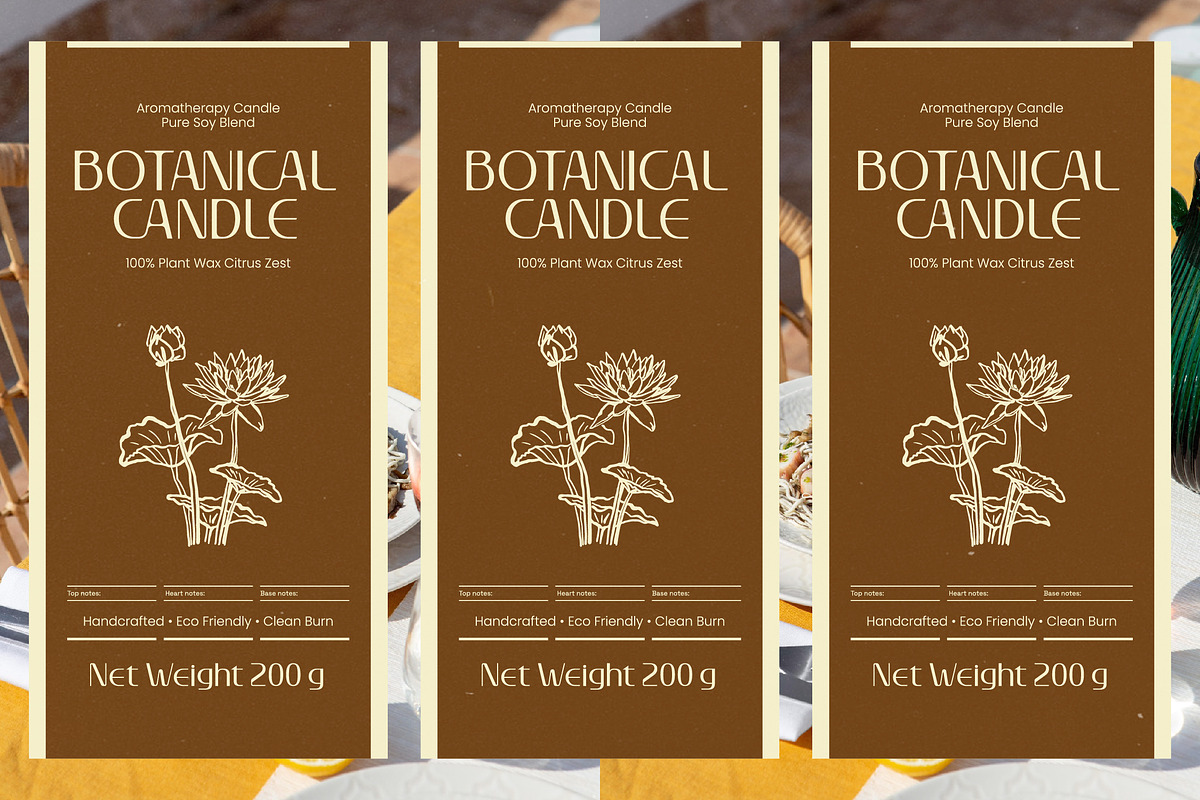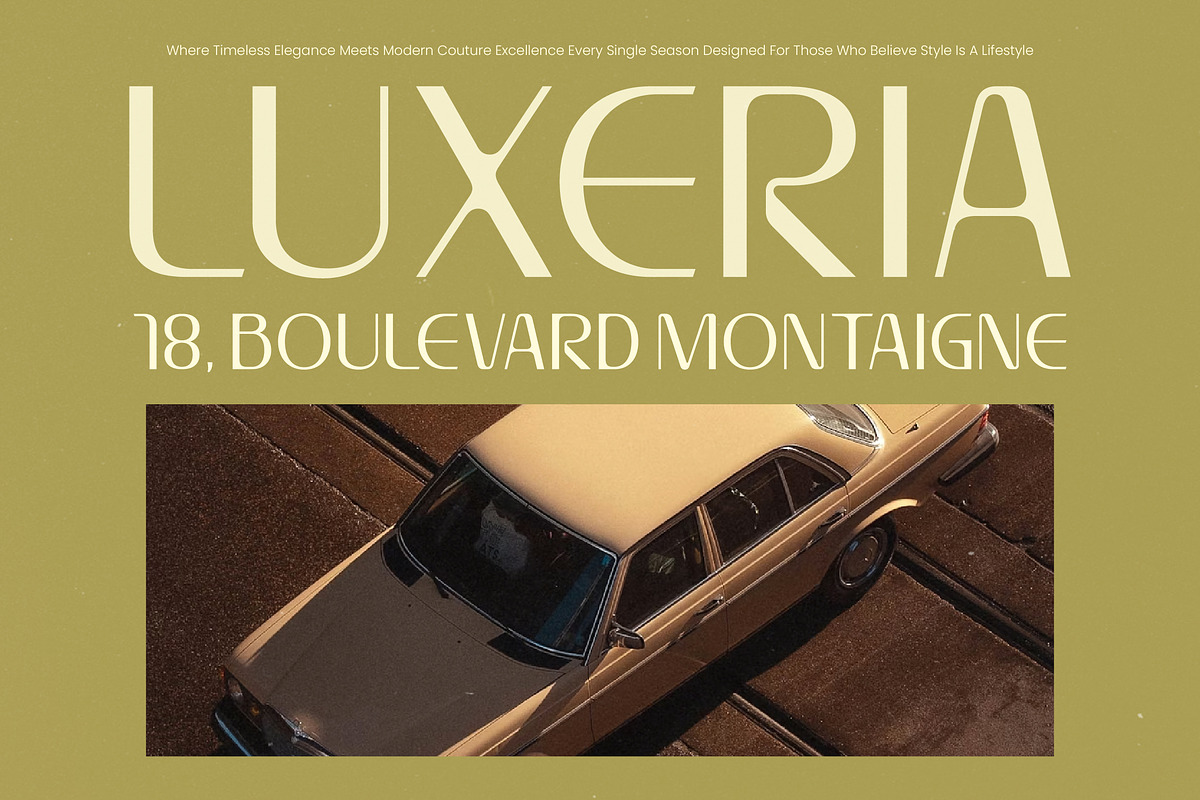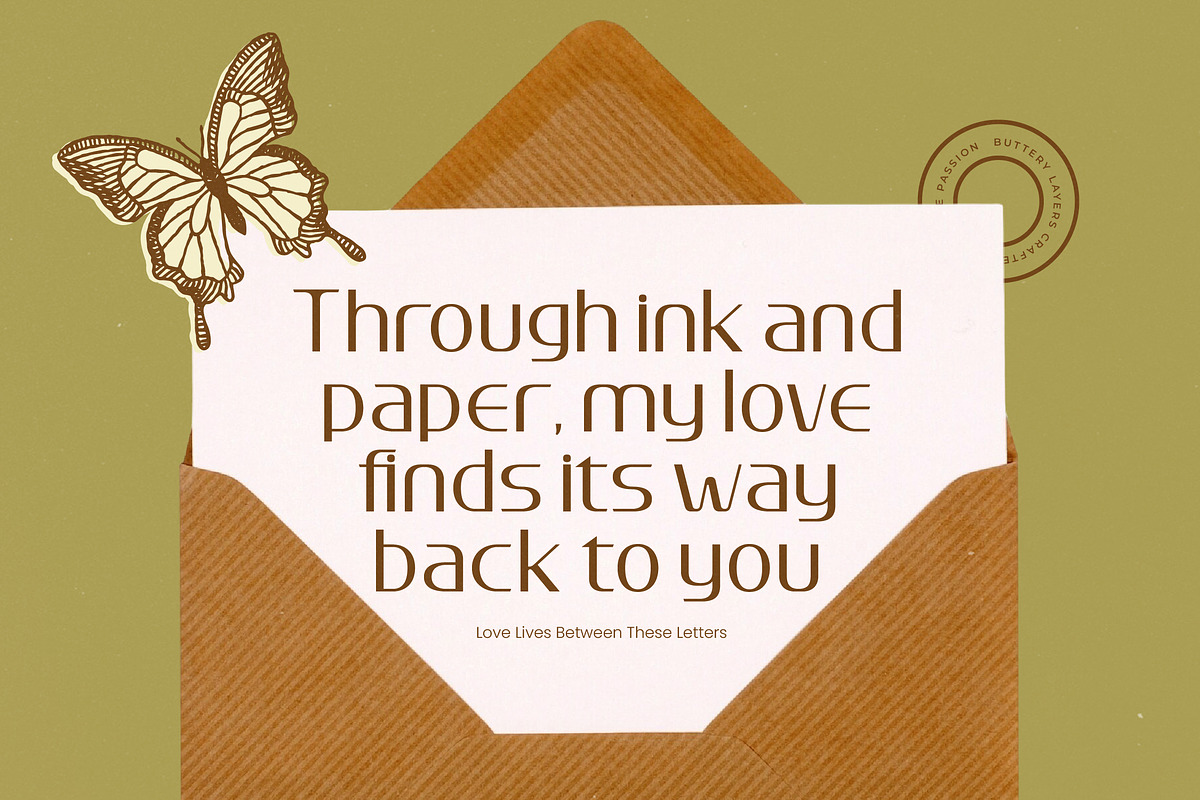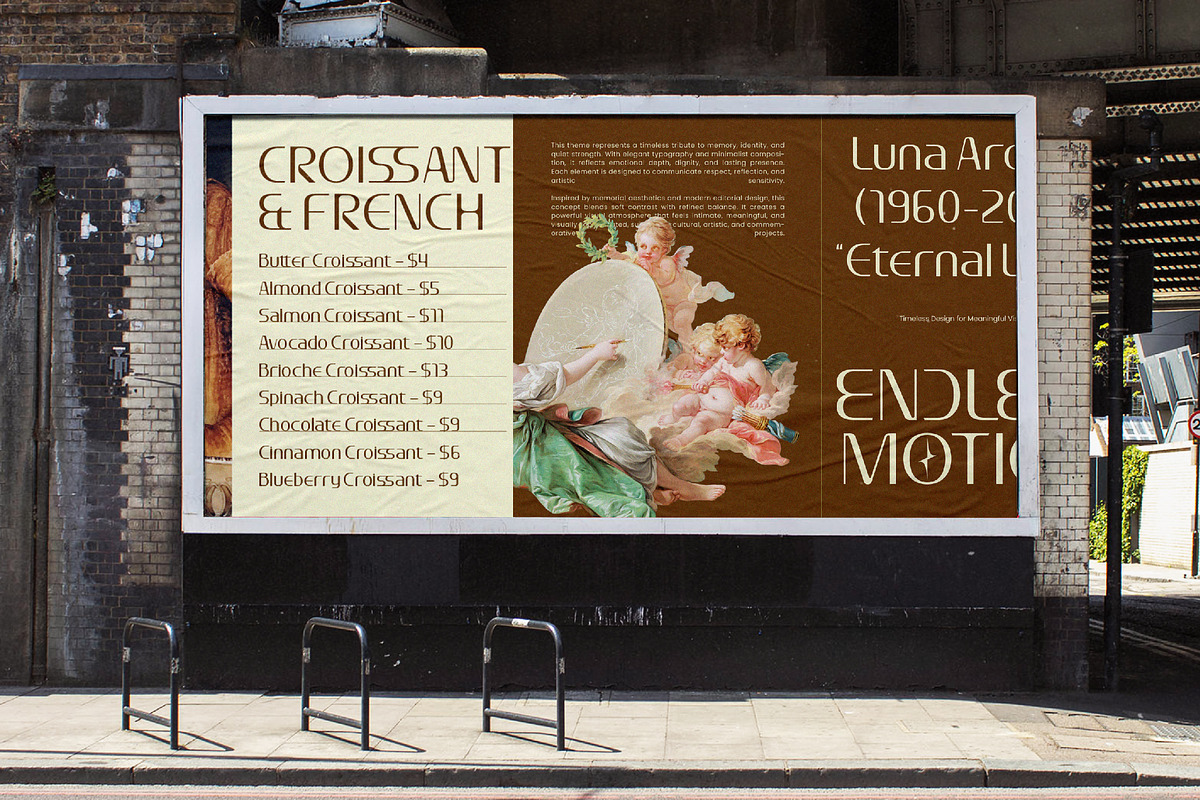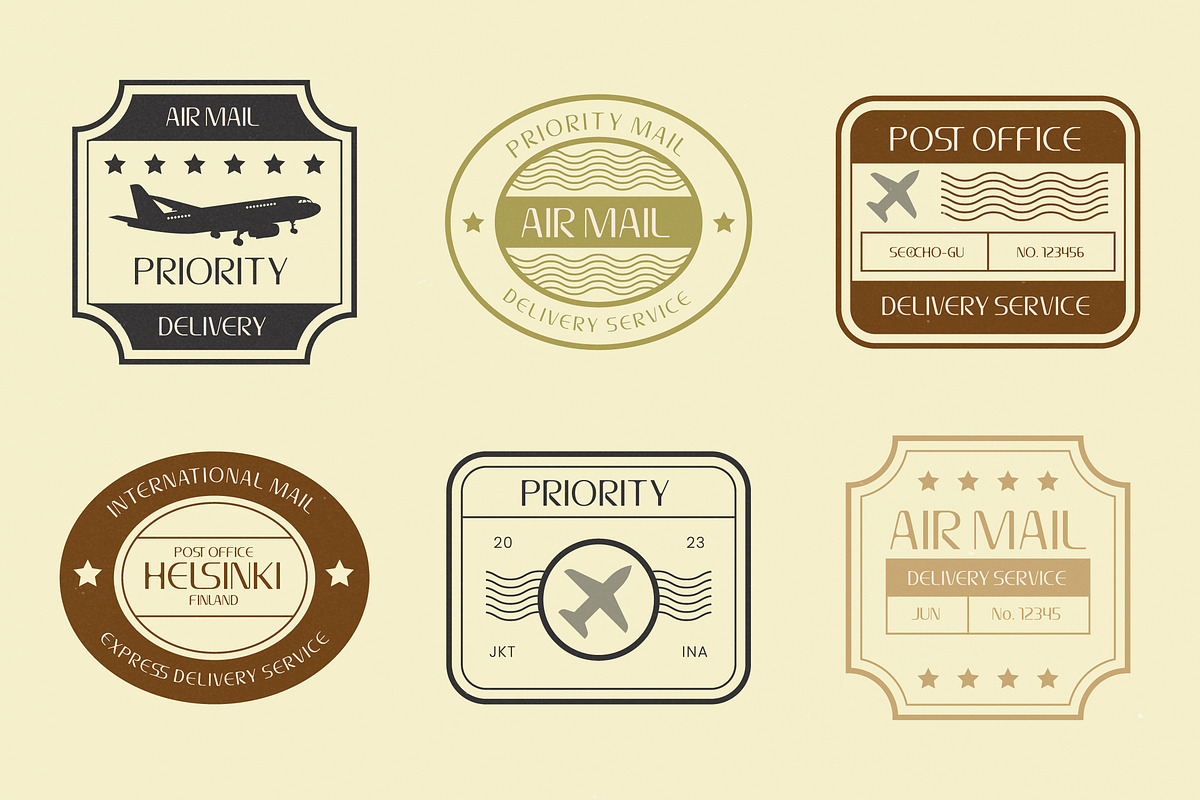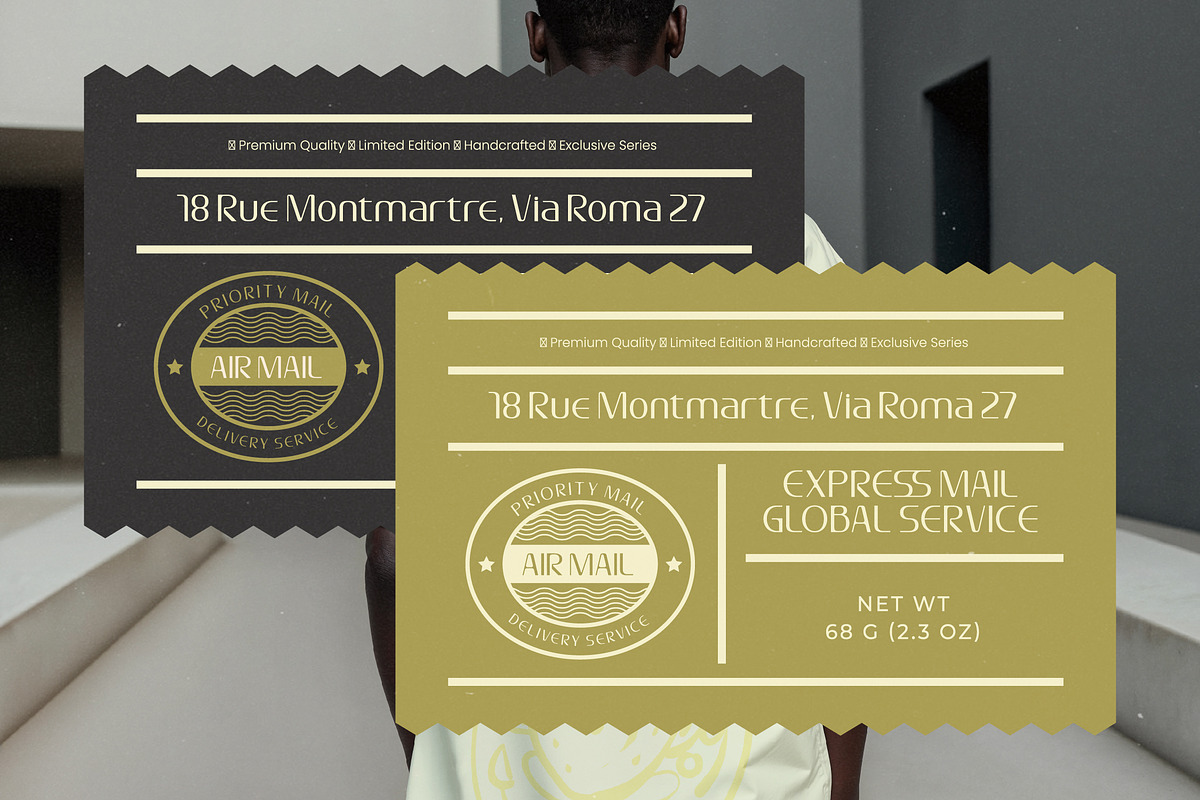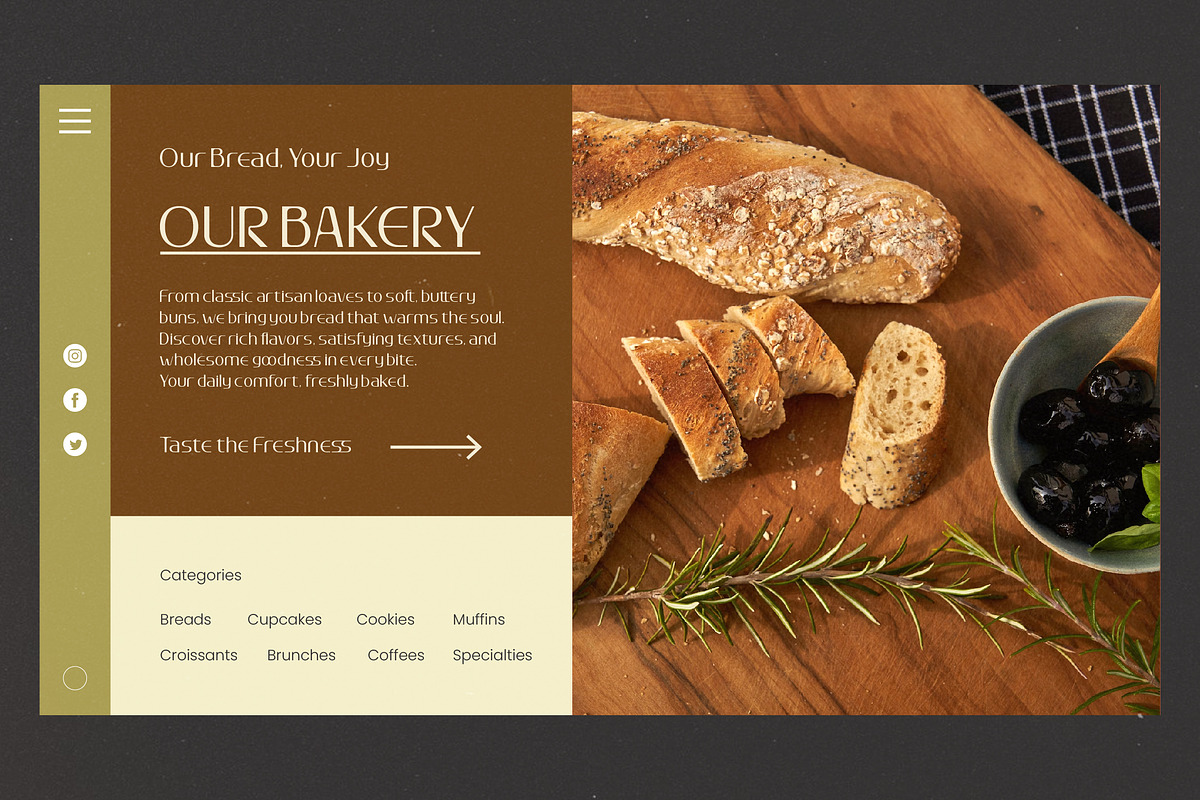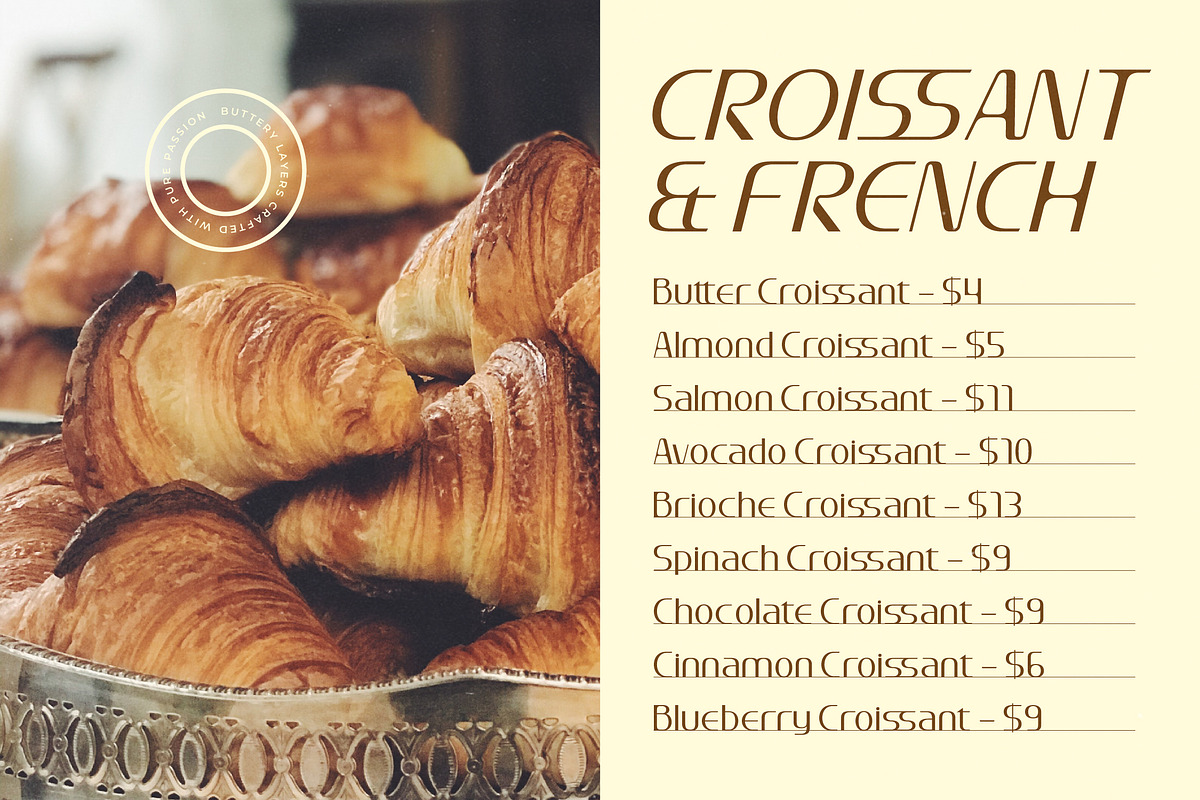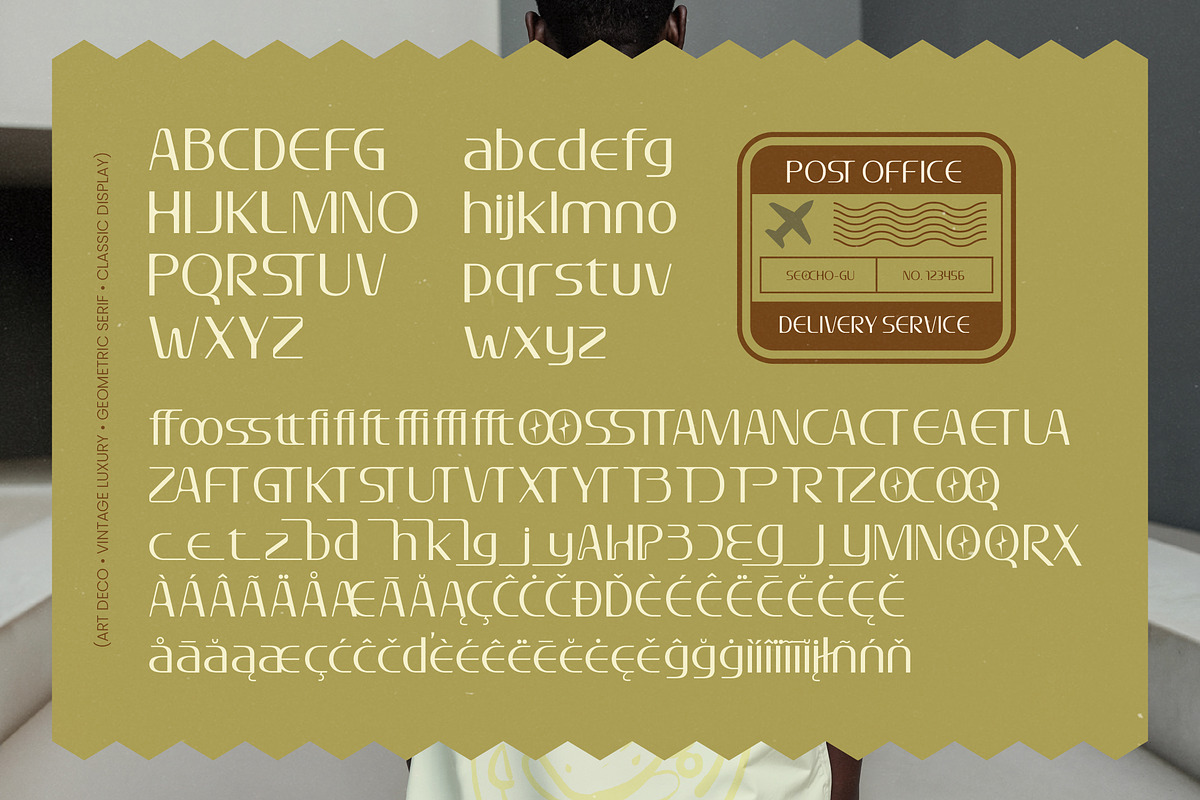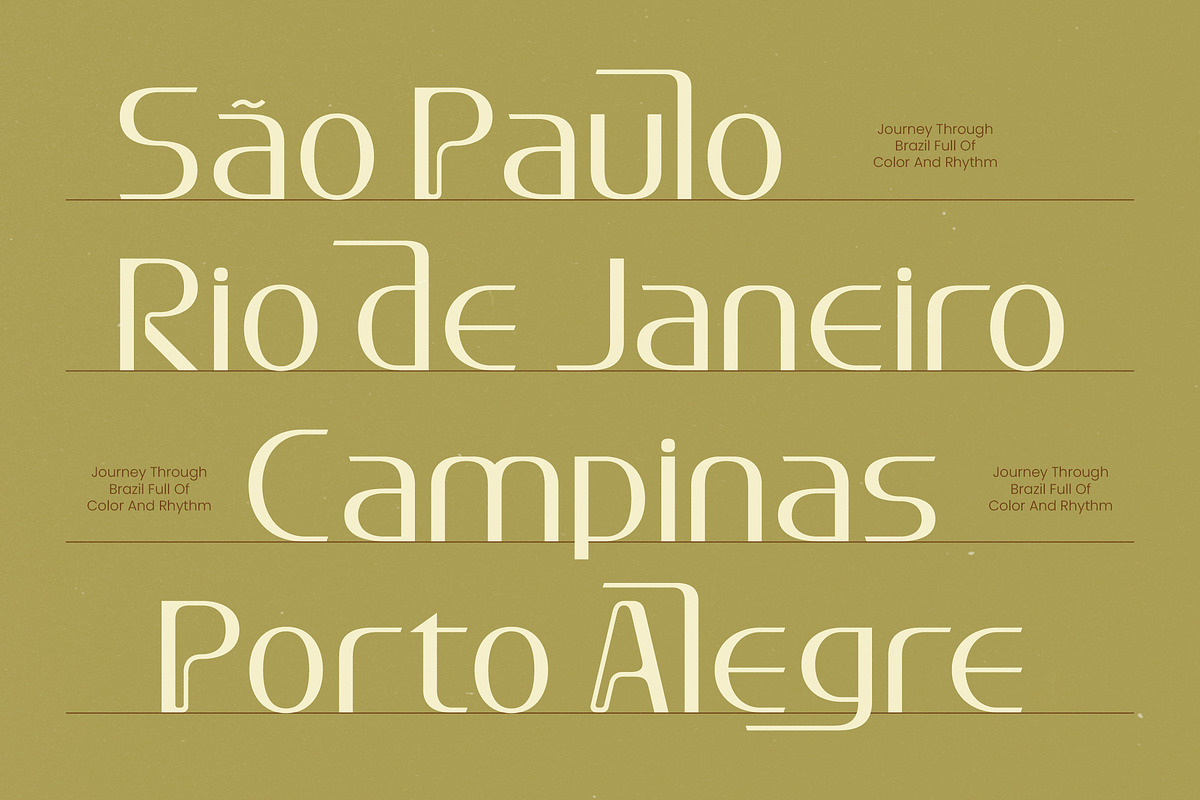
Prestafory Elegant Art Deco Font
Elevate your creative vision with the ethereal beauty of Prestafory, a typeface designed to transcend the ordinary. This font captures the essence of classic sophistication while maintaining a sharp, contemporary edge that demands attention.
Drawing inspiration from the gilded age of Art Deco and the fluid lines of Art Nouveau, this font was crafted to celebrate the intersection of history and modernism. Every curve and stroke reflects a narrative of heritage, identity, and quiet strength, making it more than just a typeface—it is a visual legacy.
Defined by its striking silhouettes and graceful geometry, this modern serif display choice brings an unparalleled sense of luxury typography to any canvas. It functions as a high-contrast serif that balances delicacy with power, providing the editorial font quality and branding impact necessary for high-end market positioning.
Perfectly aligned with the current modern serif trend, this typeface responds to the industry's craving for editorial display fonts that feel both nostalgic and forward-thinking. It is a prime example of character-driven typography that adds a layer of curated artistry to digital and print landscapes.
This versatile tool is the ultimate choice for high-concept logo design and comprehensive branding suites that require a touch of class. From sophisticated editorial layouts and luxury packaging to romantic wedding stationery and high-end fashion lookbooks, it adapts seamlessly to various creative needs.
The typeface is packed with professional features including unique ligatures and creative alternates that allow for custom typographic expressions. With elegant swashes and full multilingual support for international characters, it ensures your message is delivered beautifully across the globe.
Numerals
Punctuations (OpenType Standard)
Accents (Multilingual Characters)
Ligatures and Alternative Style Stylistic Set